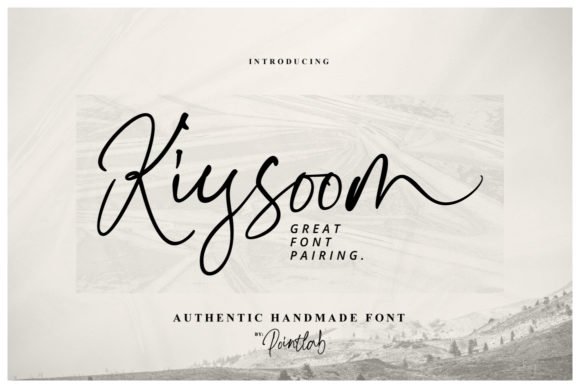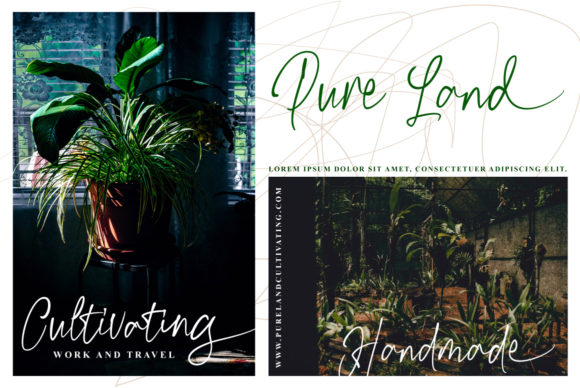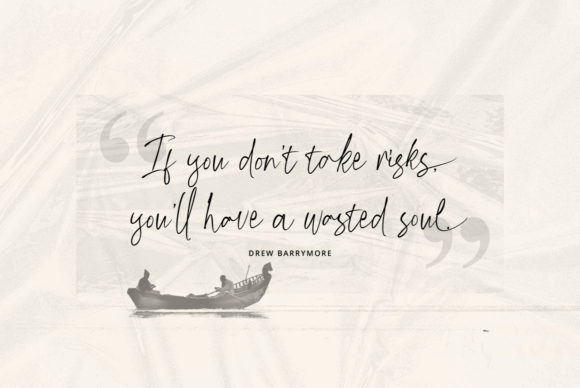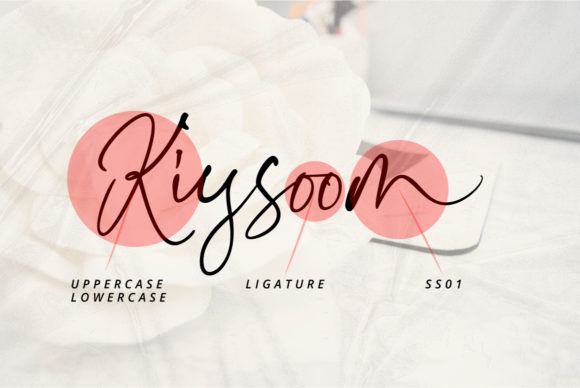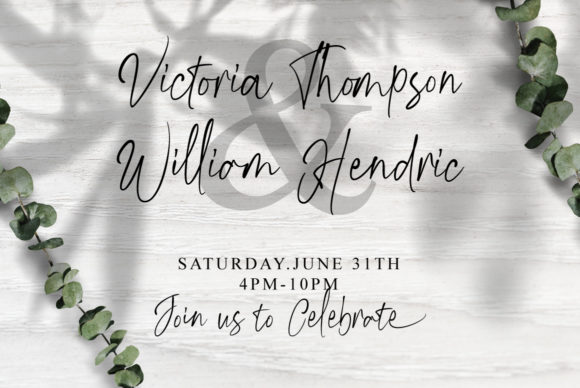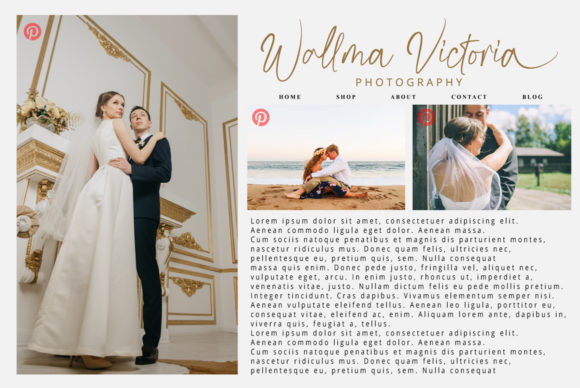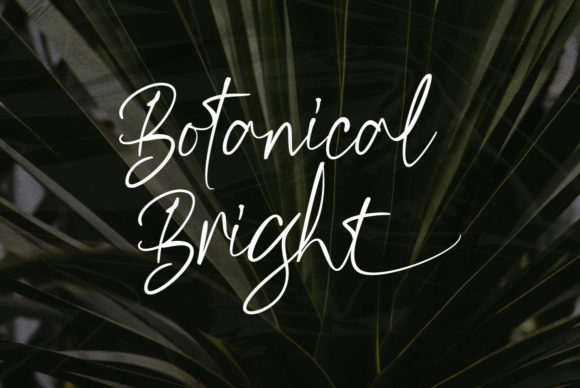
The Perfect Brushstroke: Discovering the Kiysoom Font
Have you ever found yourself scribbling down ideas in a coffee shop, the sound of the espresso machine humming in the background as your pen dances across the page? That’s the magic of creation – when the world around you fades away and all that’s left is the thrill of bringing something new to life. And that’s exactly where the Kiysoom Font comes in – a beautifully authentic handwritten font that captures the essence of that creative spark.
Designed to evoke the charm of handwritten notes and personal letters, the Kiysoom Font is perfect for designers looking to add a touch of warmth and personality to their projects. Whether it’s a branding campaign, a social media post, or a marketing brochure, this lovely font is sure to turn any design into a standout. With its light and airy feel, the Kiysoom Font is a valuable addition to any designer’s toolkit, waiting to bring a touch of whimsy and elegance to your next project.
Kiysoom Font Key Features
- Font Family: Kiysoom Font is a unique, handwritten font family designed for creative purposes.
- Unique Characteristics: Kiysoom Font features a distinctive, hand-drawn aesthetic with subtle irregularities and imperfections, giving it a personal and creative feel.
Kiysoom Font Review
I recently had the chance to work with the Kiysoom font, and I must say it’s a unique addition to any designer’s toolkit. ✨ One of the things I appreciate most about Kiysoom is its versatility. It’s perfect for creating bold, eye-catching headlines or for adding a touch of elegance to body text.
- ✨ Wide range of applications: from posters to business cards
- ✨ Unique character set with a mix of cursive and sans-serif elements
- ✨ Supports multiple languages, making it a great option for global projects
However, I do have a few concerns about Kiysoom’s limitations. ⚠️ The font can feel a bit overused if not used carefully, and some users may find it difficult to read in certain contexts.
- ⚠️ Potential for overuse due to its distinctive design
- ⚠️ Limited legibility in small text sizes or low-resolution displays
Overall, I think Kiysoom is a solid addition to any designer’s font collection. While it may not be perfect for every project, its unique style and versatility make it a great option for designers looking to add some flair to their work.
Tips for Getting the Most Out of Kiysoom Font
Use the Kiysoom font for creative and artistic purposes, such as:
1. Titles and headings for a unique and eye-catching look.
2. Emphasizing important information or creating a sense of drama.
3. Adding a touch of personality to your designs.
The Kiysoom font is commonly used for:
1. Creative agency branding and marketing materials.
2. Social media graphics and ads.
3. Editorial and publishing projects.
Alternatives to Kiysoom Font
Playfair Display is an elegant and luxurious serif font. It is ideal for use in high-end branding, invitations, and magazine titles. When to use: Formal, luxury, and high-end designs.
Comparison: Playfair Display has a more classical and sophisticated look compared to Kiysoom Font’s modern and playful vibe. It is also more versatile and suitable for various design applications.
Great Vibes is a modern calligraphy font with a touch of elegance. It is perfect for use in wedding invitations, branding, and packaging designs. When to use: Romantic, elegant, and modern designs.
Comparison: Great Vibes has a more refined and sophisticated look compared to Kiysoom Font’s bold and playful style. It is also more suitable for designs that require a touch of elegance and sophistication.